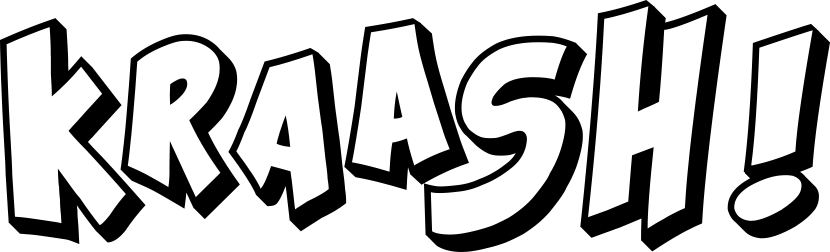
Kraash Font
Do not miss our attractive creative fonts today! Here is the Kraash comic font with two different versions to give your text a better design. You can use this playful font for the titles of cartoon programs, storybooks, games, logos, and T-shirts to leave a long-lasting impact on your audience’s minds. Download it right now and enjoy!